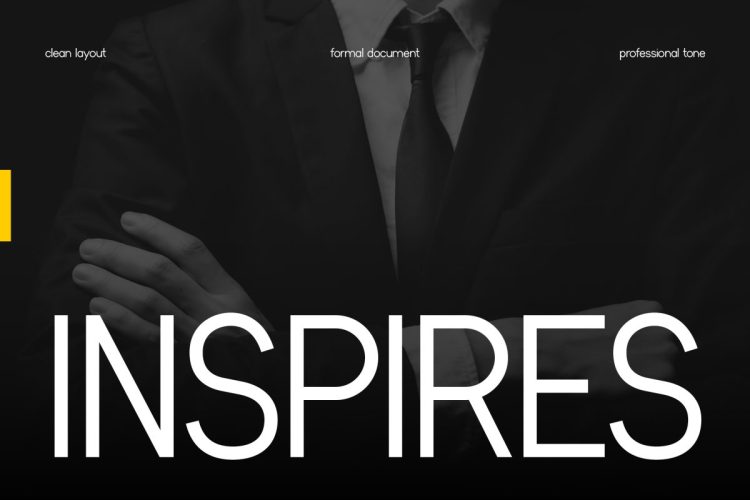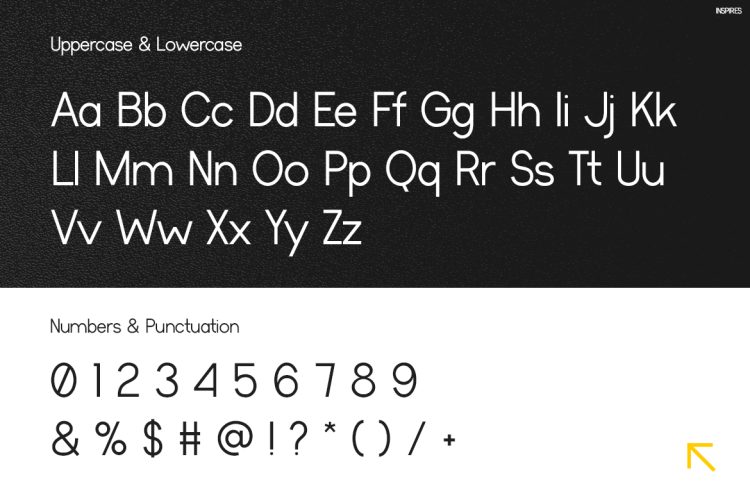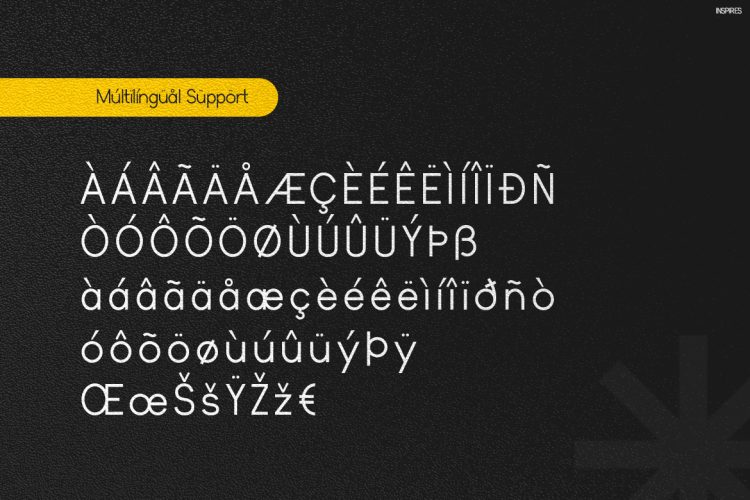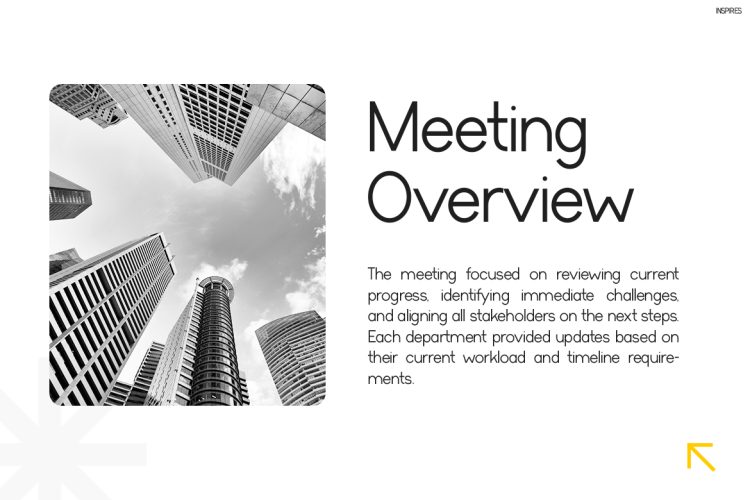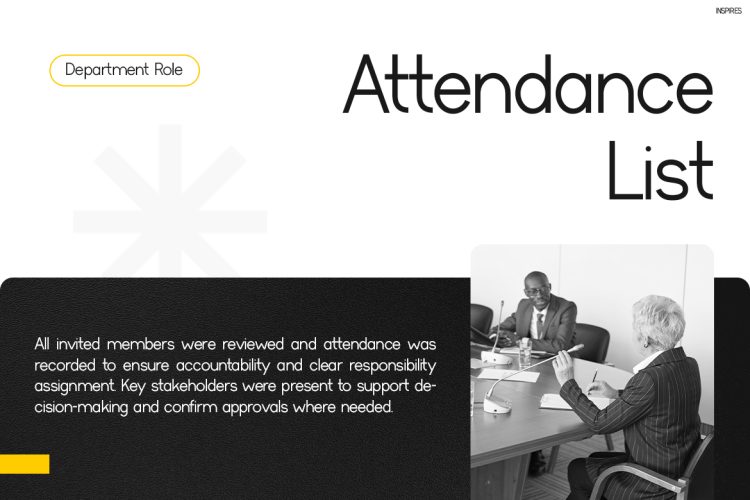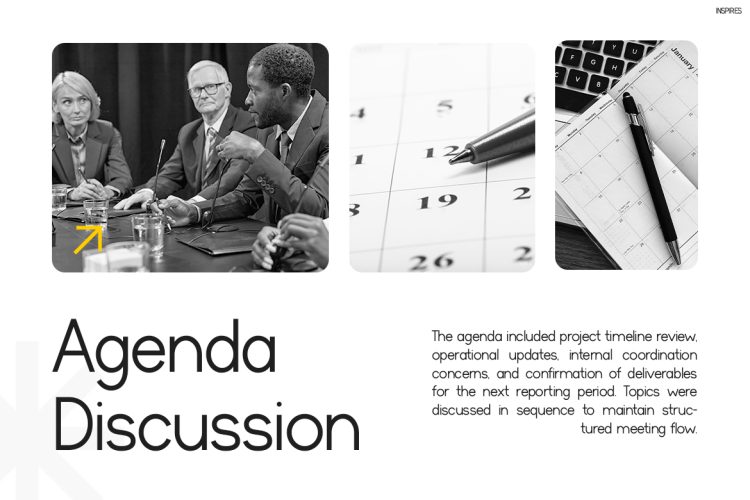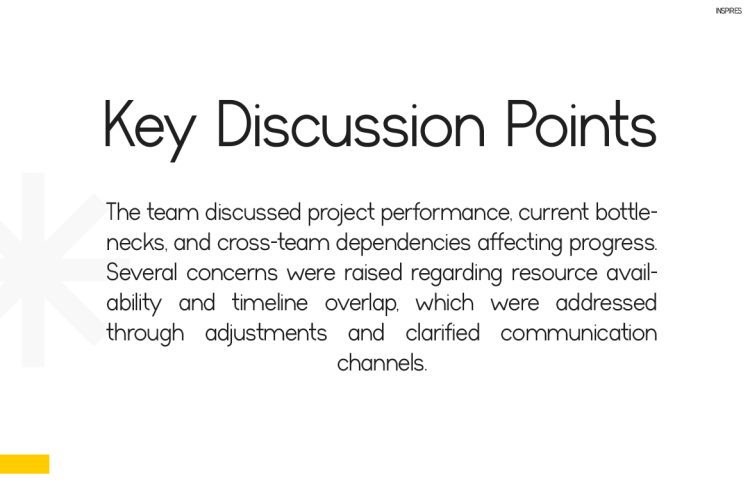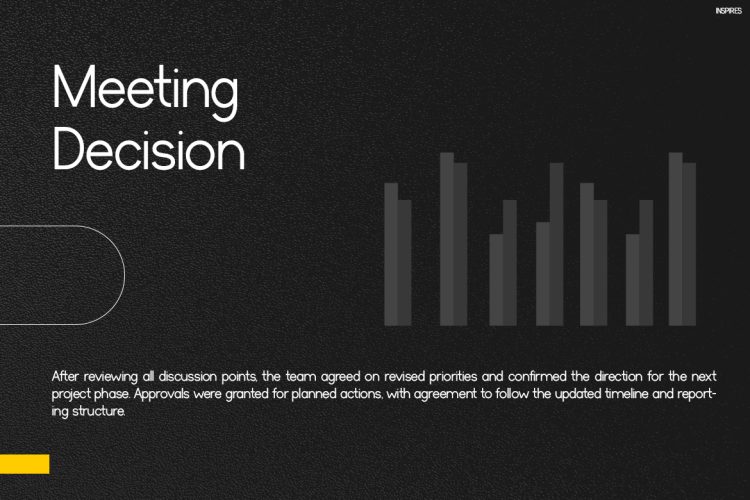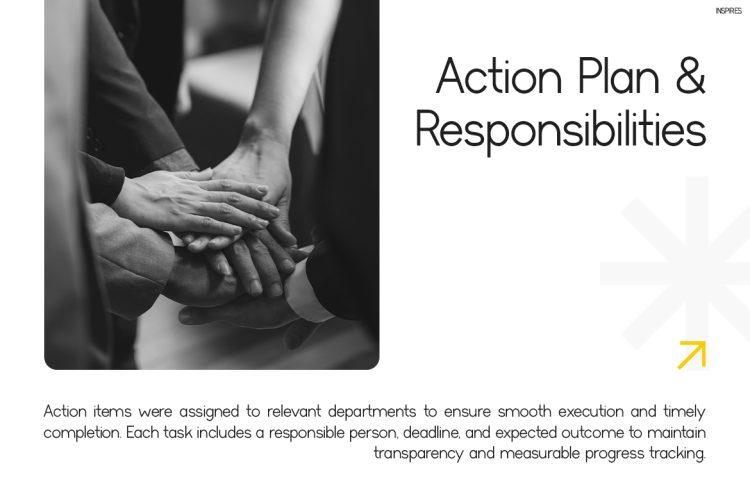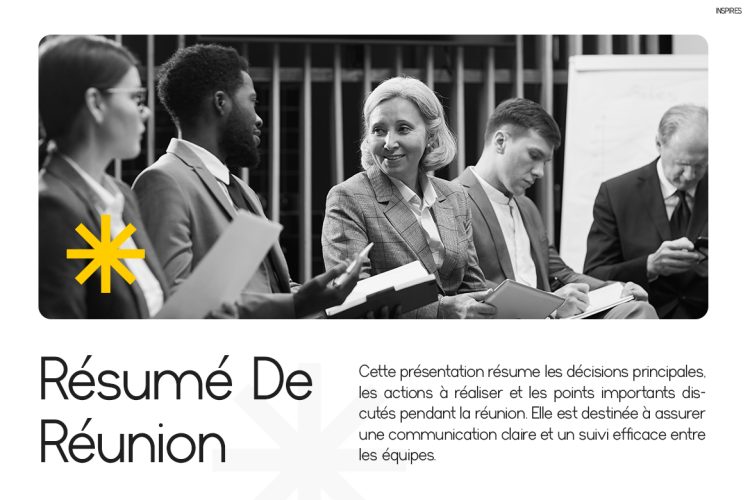
Modern Font Inspires โ Contemporary Minimalist Typeface for Bold Communication
Modern Font Inspires redefines clean typography with a fresh, contemporary edge that feels both sharp and effortlessly elegant. From the very first glance, this font captures attention through its balanced proportions, crisp strokes, and refined spacing. Unlike ordinary sans-serif fonts, it brings a distinctive visual rhythm that feels dynamic yet controlled. Furthermore, its minimalist construction allows every letter to breathe, making your design look more structured and premium. Because of this, it works perfectly in both large-scale headlines and detailed layouts, ensuring clarity without sacrificing style. With support for 67 languages, itโs built for global communication while maintaining a consistent and polished aesthetic across all platforms.
What Makes It Stand Out
Modern Font Inspires is engineered for modern creatives who value precision and visual impact. Its clean geometry and subtle stylistic details make it highly adaptable across various design needs. Whether you’re creating pitch decks, editorial spreads, or digital campaigns, this font enhances readability while elevating the overall look. In addition, it blends seamlessly with both dark and light themes, giving you full creative flexibility. The structure feels professional, yet it still carries a contemporary personality that keeps your visuals engaging and relevant.
Who Should Use It
This typeface is an excellent choice for designers, entrepreneurs, corporate teams, and content creators aiming to build a modern and credible visual identity. Itโs particularly effective for business presentations, branding projects, social media visuals, and portfolio showcases. Moreover, agencies and startups can rely on it to communicate ideas clearly while maintaining a strong, stylish impression. If your goal is to look professional without appearing outdated, this font is a smart and strategic pick.